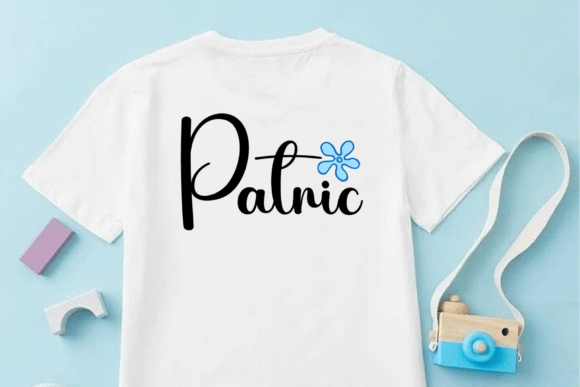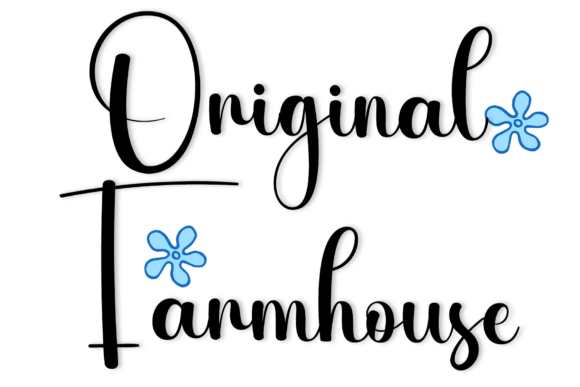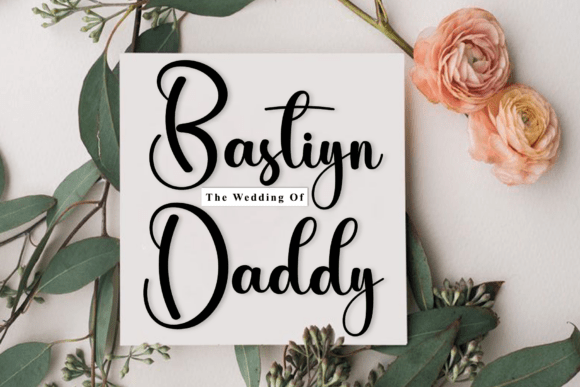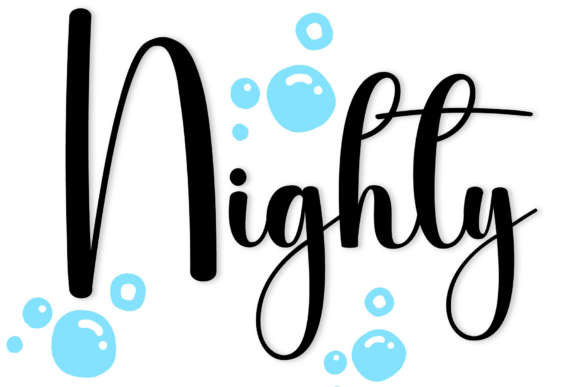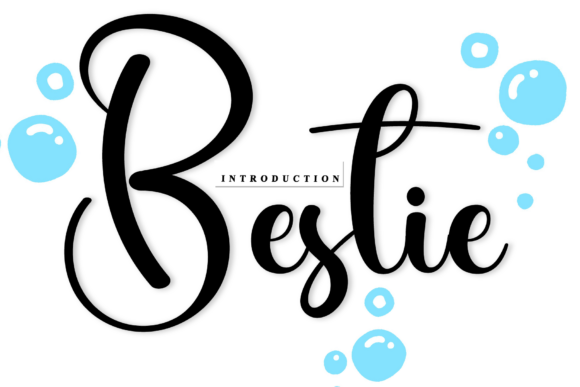
Introducing Bestie Font: The Ultimate Choice for Designers and Crafters
Are you tired of using the same old fonts for your designs? Look no further! Bestie Font is here to revolutionize your creative projects with its lovely and timeless handwritten style. This beautiful font is perfect for creating eye-catching logos, branding, and quotes that will make your design come alive!
What Makes Bestie Font So Special?
Bestie Font stands out from the rest due to its unique and beautiful touch. Every letter is carefully crafted to provide a distinctive and elegant feel that will elevate your designs to the next level. Whether you’re a designer, crafter, or DIY enthusiast, Bestie Font is the perfect choice for anyone looking to add a personal touch to their projects.
When it comes to creating logos and branding materials, the font you choose can make all the difference. Bestie Font is specifically designed to help you create stunning logos and branding materials that will leave a lasting impression on your audience. Its elegant and sophisticated style makes it perfect for:
- Logos and business cards
- Branding materials, such as brochures and flyers
- Packaging and labeling
Adding a Personal Touch to Your Designs
Bestie Font is more than just a font – it’s a way to add a personal touch to your designs. Its handwritten style gives your projects a warm and inviting feel that’s perfect for:
- Quotes and inspirational sayings
- DIY projects and crafts
- Personalized gifts and stationery
Why Choose Bestie Font?
With so many fonts to choose from, why should you choose Bestie Font? Here are just a few reasons why Bestie Font stands out from the rest:
- Unique and beautiful touch: Every letter is carefully crafted to provide a distinctive and elegant feel.
- Timeless style: Bestie Font has a classic, timeless style that will never go out of fashion.
- Versatile: Bestie Font is perfect for a wide range of design projects, from logos and branding to quotes and DIY crafts.
Tips for Using Bestie Font
Here are a few tips for using Bestie Font to get the most out of this beautiful font:
- Pair Bestie Font with other fonts to create a unique and eye-catching combination.
- Use Bestie Font to add a personal touch to your designs, such as in quotes and inspirational sayings.
- Don’t be afraid to get creative and try new things – Bestie Font is a versatile font that can be used in a wide range of design projects.
Bestie Font is a lovely and timeless handwritten font that’s perfect for designers and crafters looking to add a personal touch to their projects. With its unique and beautiful touch, Bestie Font is the perfect choice for creating eye-catching logos, branding, and quotes. Whether you’re a seasoned designer or a DIY enthusiast, Bestie Font is sure to become a favorite in your design arsenal.